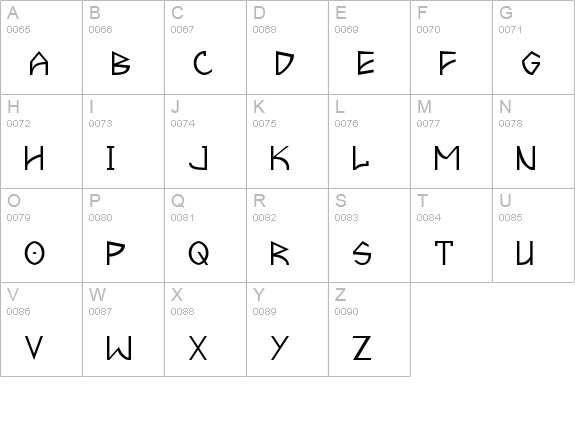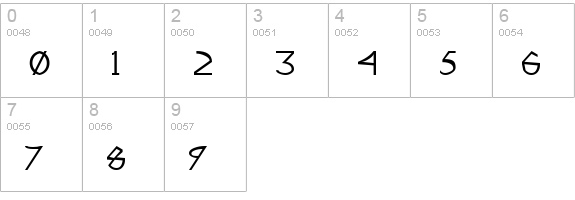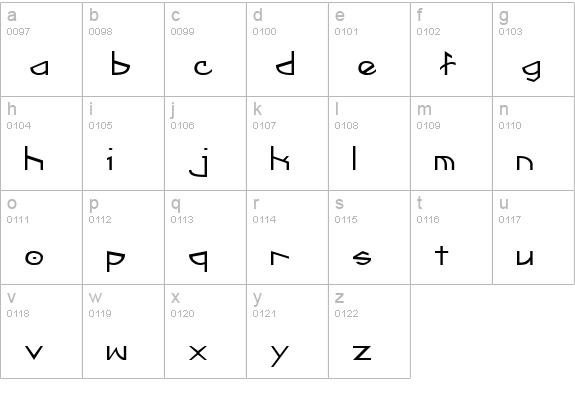
Predacon Beasts Font Details
Predacon Beasts font is a ferociously captivating typeface inspired by the powerful and untamed nature of predatory creatures. With its sharp edges and bold design, this font exudes strength and dynamism, making it perfect for projects that require a touch of wildness and aggression. Embrace the primal energy of Predacon Beasts font as it unleashes its fierce personality onto your designs, commanding attention and leaving a lasting impression. Whether you are working on a branding project, poster design, or any other creative endeavor, this font will inject a dose of wild spirit and raw power into your work. Experience the untamed beauty of Predacon Beasts font for yourself - and the best part? It's completely free to download at FontsMarket.com. Don't miss out on the opportunity to add this captivating typeface to your collection and let your creativity run wild with Predacon Beasts font.